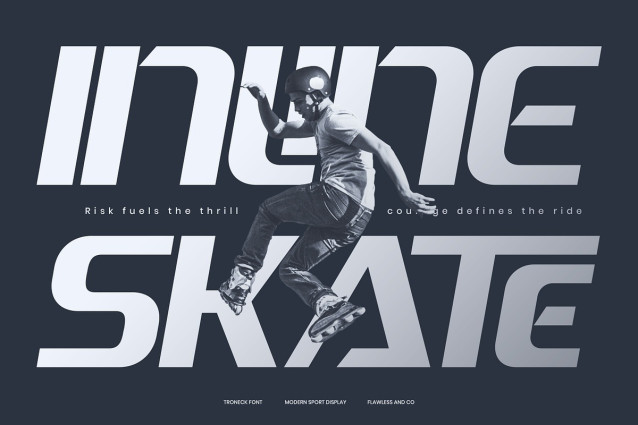
Troneck Font
Troneck Font is a bold and dynamic modern sport display font designed to bring speed, energy, and strength into every design project. With its sharp edges, futuristic curves, and confident stance, Troneck captures the essence of modern sports and athletic branding. Perfect for making powerful statements, this typeface adds a sense of motion and determination wherever it’s used. Whether for logos, jerseys, posters, or digital media, Troneck gives your design the edge it needs to stand out. Its versatility makes it suitable for both print and screen, ensuring your brand identity or creative project leaves a lasting impression.